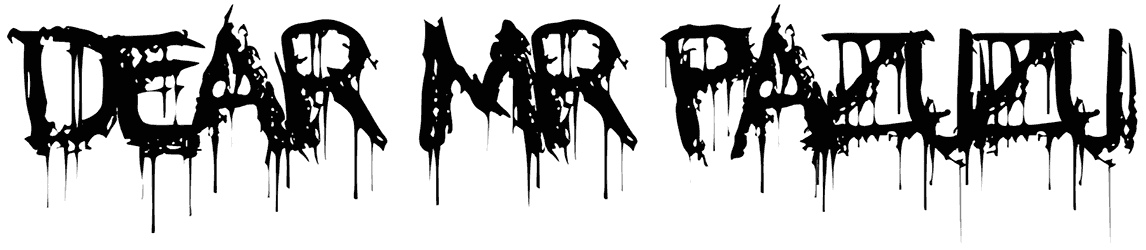
Dear Mr Pazuzu Font
Dear Mr Pazuzu font has that creepy handwritten energy that feels like a cursed note left under a door. The letters wobble, scratch, and misbehave in all the right ways, giving your text a strange personality before anyone even reads it. It’s horror, but not the polished movie-poster kind; more like something found in an attic box.
Use this evil font for occult flyers, indie horror titles, spooky podcast covers, Halloween stickers, escape room posters, or creepy zine layouts. Add candlelight, dusty paper, red ink, or old book textures, and the Dear Mr Pazuzu font will make the whole design feel suspiciously alive.